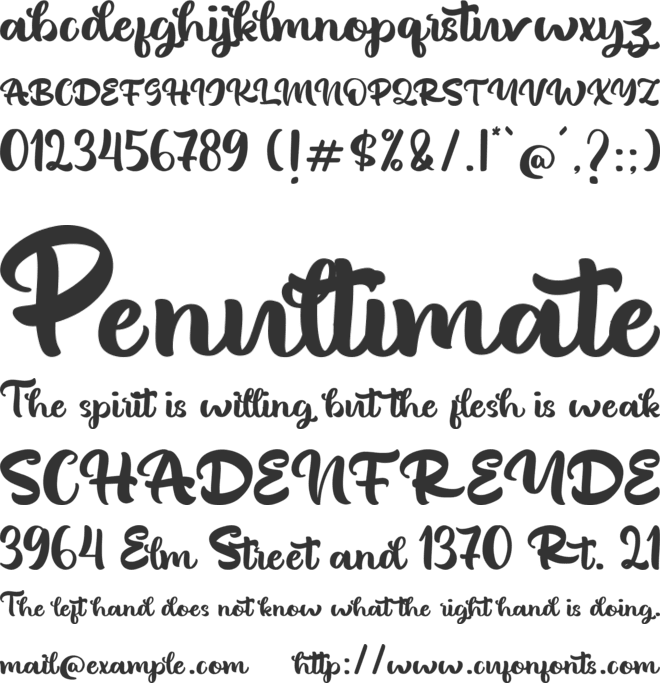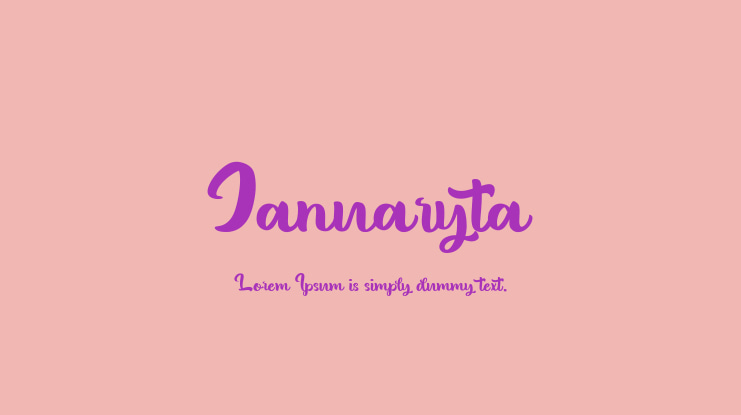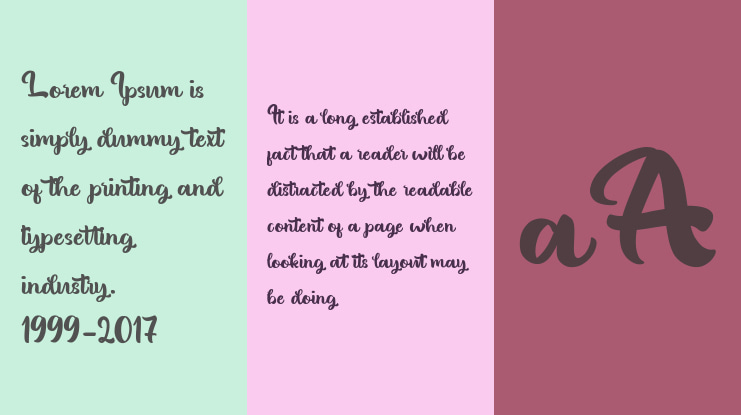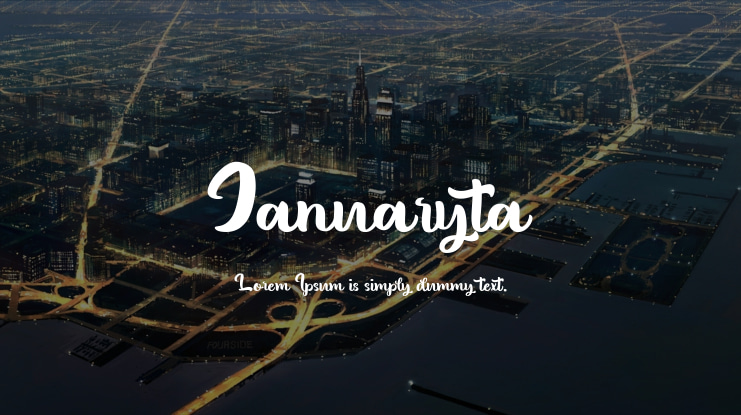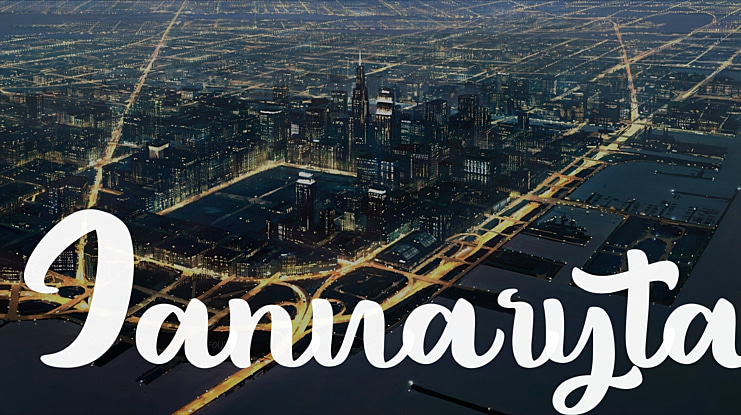
Januaryta Font
About Januaryta font :
Januaryta is a smooth handwritten font and has a calm and pleasant impression. With a cute style it looks stunning on wedding invitations, quotes, greeting cards, eye-catching social media posts, thank you cards, and many more other designs.